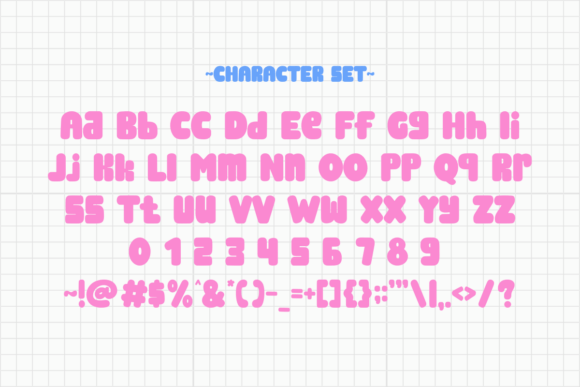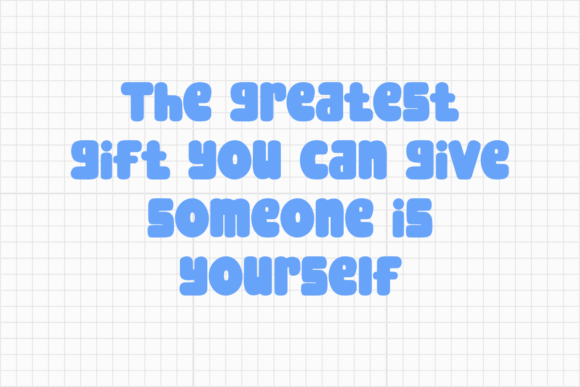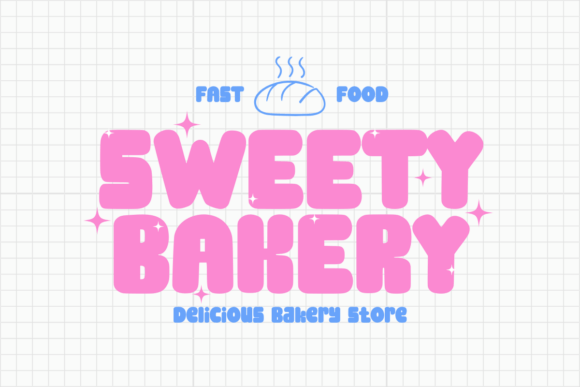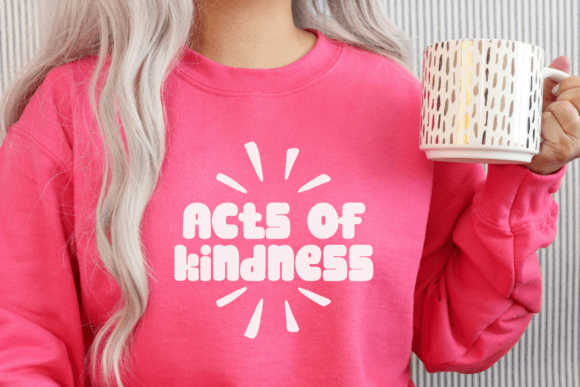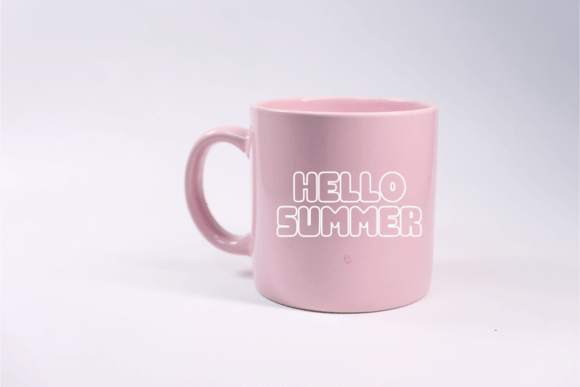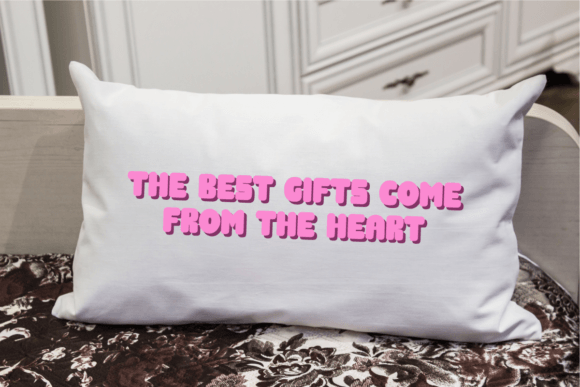
Introduction to Gift Giving Font
Gift Giving is an adorable bubble font bursting with playful charm and vibrant energy.
Its rounded, puffy letterforms and cheerful design make it perfect for kids’ projects, birthday cards, toy packaging, social media graphics, and holiday themes With its fun and lighthearted style, Gift Giving is guaranteed to bring a smile to your audience and add a pop of joy to your designs.